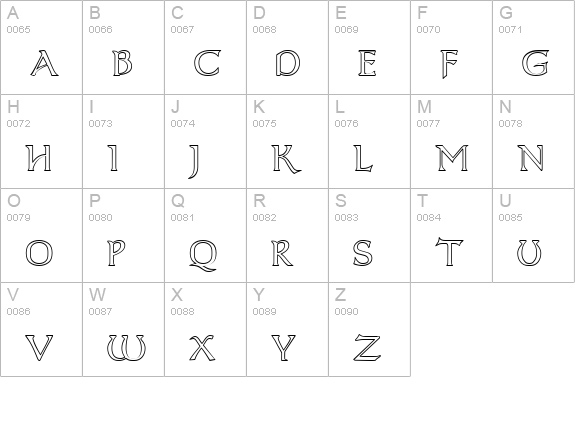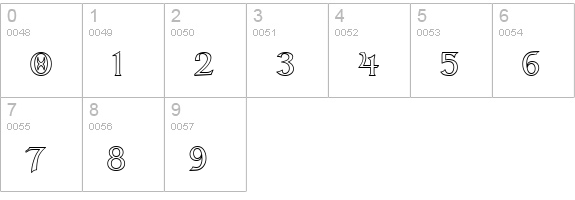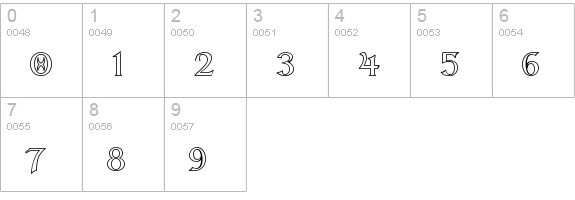
Dumbledor 2 Outline font is a contemporary and stylish typeface that exudes sophistication and elegance. Its sleek outlines and distinctive letterforms make it perfect for a wide range of design projects, from branding to editorial layouts. With its clean lines and modern aesthetic, Dumbledor 2 Outline font is sure to make a bold statement in any design. The best part? Dumbledor 2 Outline font is available for free download at FontsMarket.com. Simply head over to the website and grab this stunning font to elevate your designs to the next level. Don't miss out on the opportunity to add this versatile typeface to your font collection today!